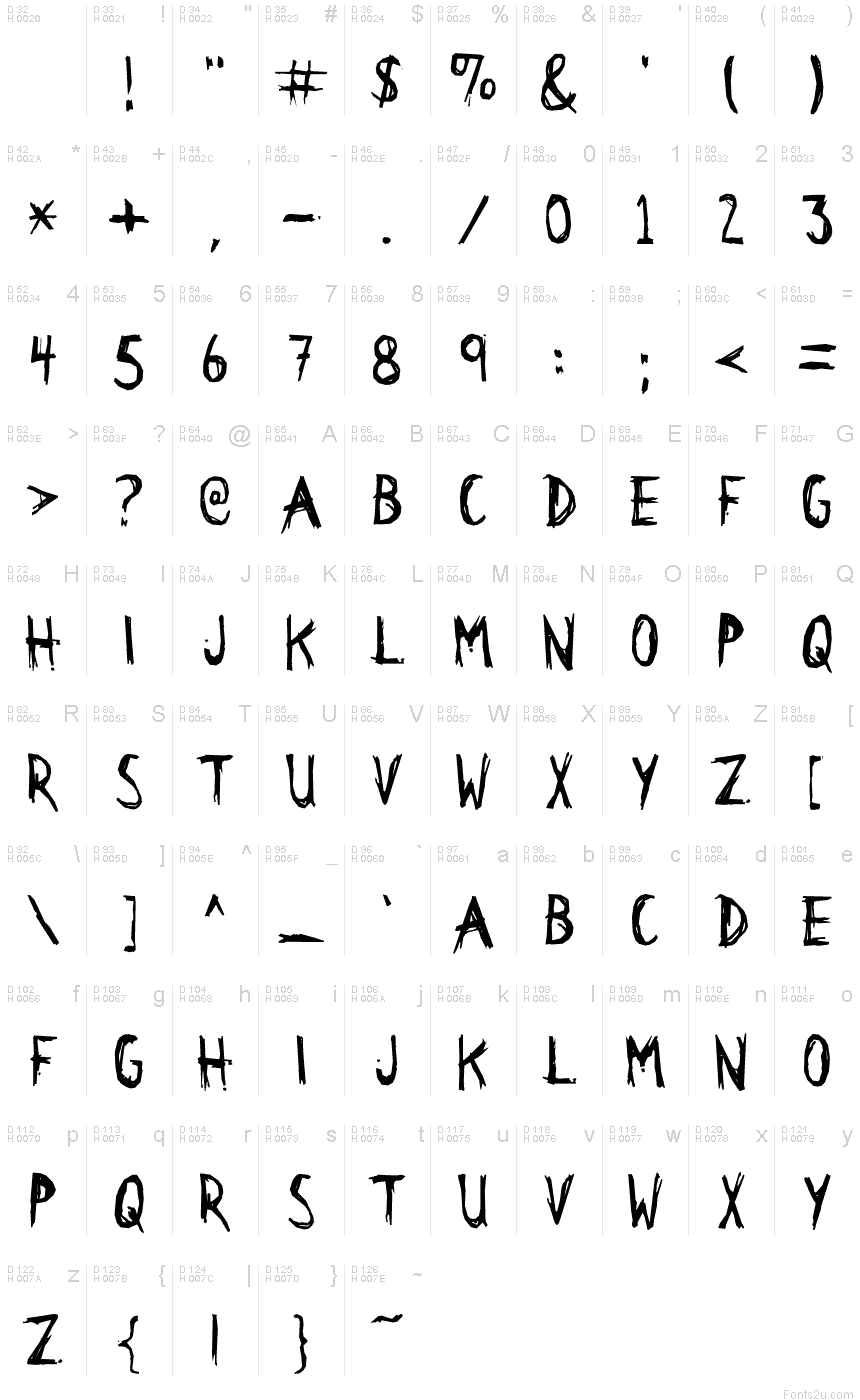
Citizen Dick
Citizen Dick font by Fontosaurus Text is a free trash script typeface that looks like it’s been clawed onto a dirty wall with a broken marker. Tall, scratchy letters drip and splinter at the ends, giving every word a smeared, anarchic energy. The strokes feel rough and inky, as if they were scrawled in a hurry on a gig flyer or a bathroom stall, making the font shout without needing color or effects.
Using Citizen Dick, this free font shines on punk and metal posters, underground zines, horror titles, skate deck graphics, album covers, and edgy streetwear prints. The irregular rhythm and jagged edges instantly add noise and attitude, even to simple one-word headlines. Set it big and bold for maximum impact, and pair it with a plain condensed sans serif for body text so the wild lettering has room to thrash.